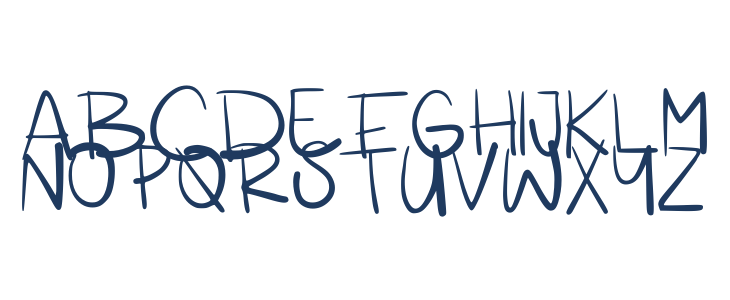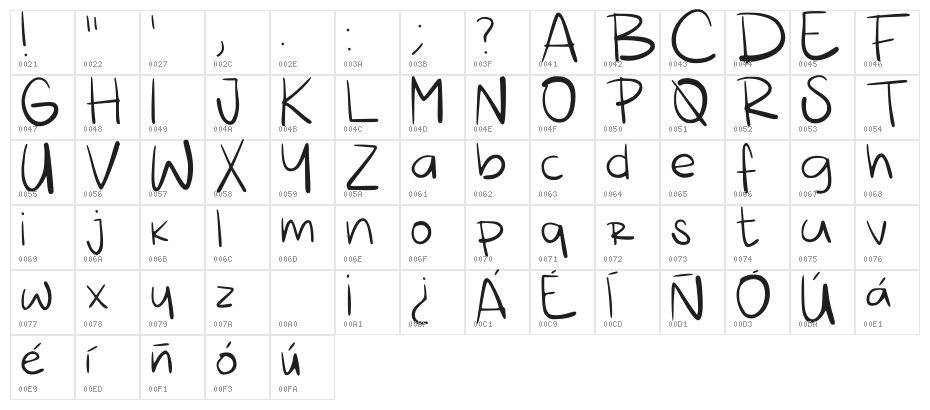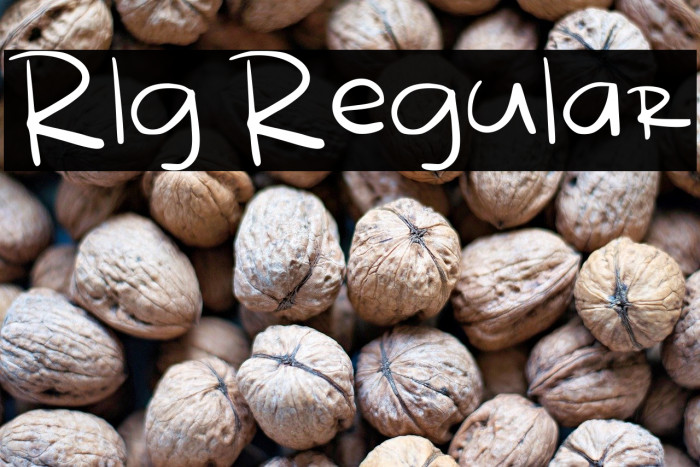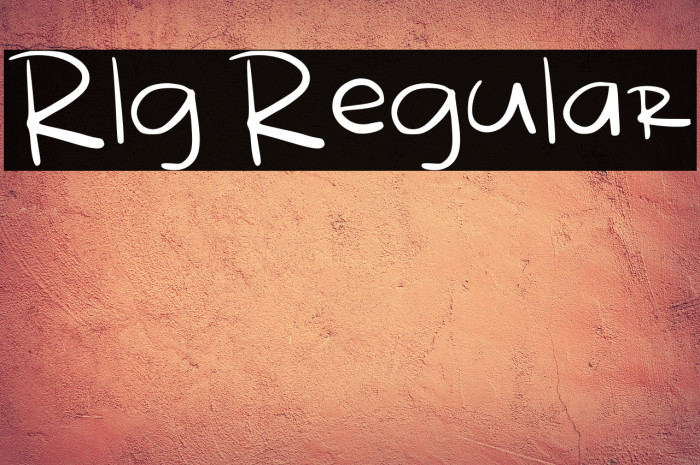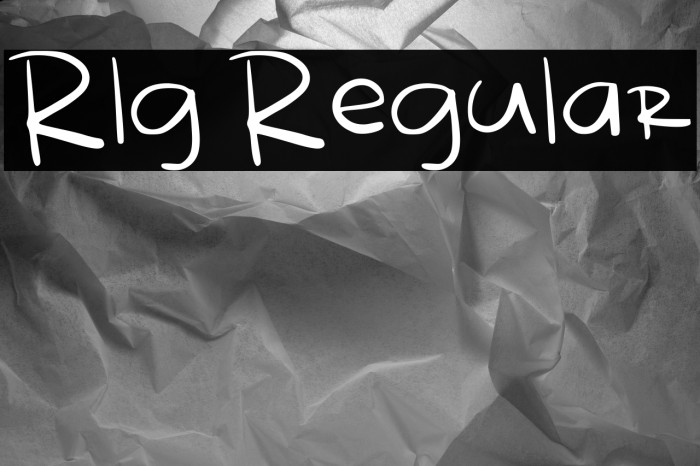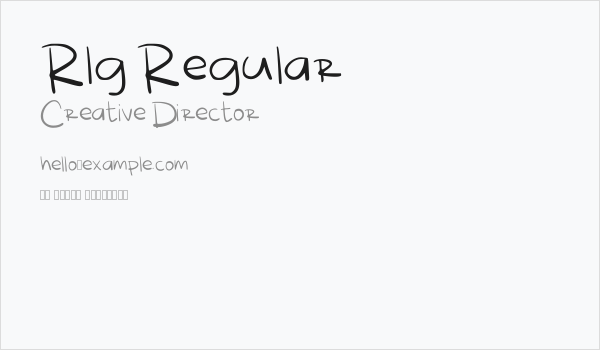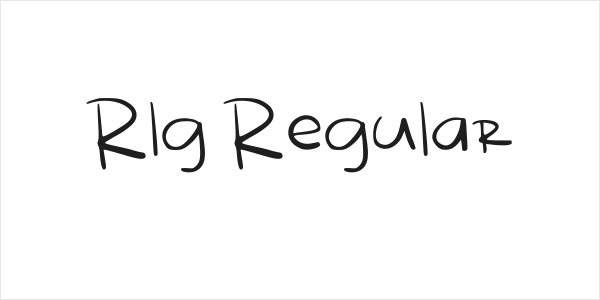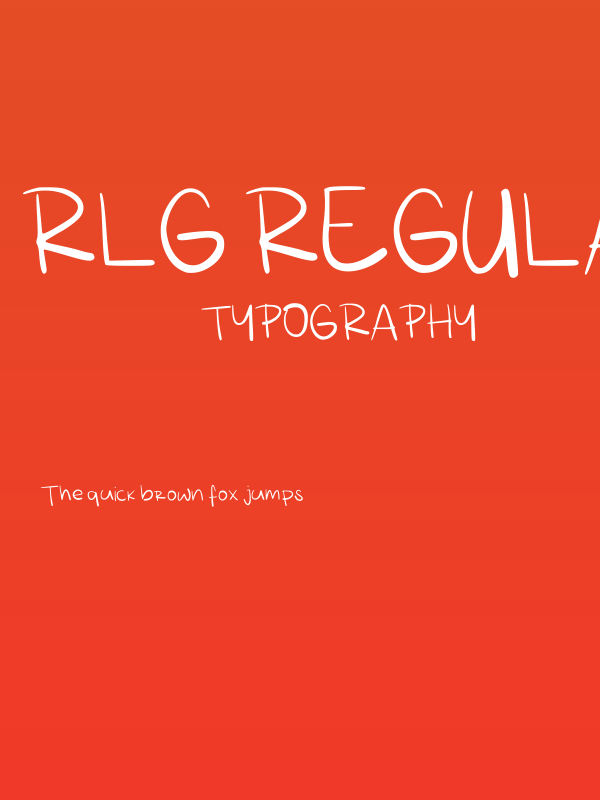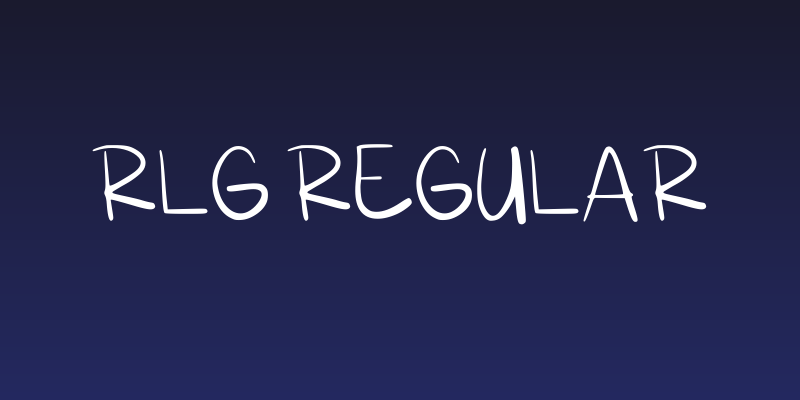
Rlg Regular Font
Rlg Regular Description
A playful handwritten typeface with irregular, slightly quirky letterforms and a casual, informal appearance. The strokes are consistent in width, and the characters have a loose, organic feel, resembling natural handwriting.
| Overall Style | Playful, Informal, Handwritten |
| Use Case | Headlines, Short text, Creative projects |
| Proposed Projects | Children's books, greeting cards, informal posters, creative branding, social media graphics. |